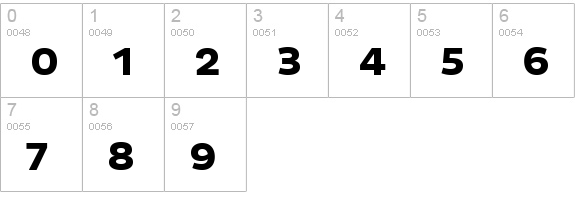
Pluto Bold is a strong, high-contrast variant in the Pluto typeface family \xE2\x80\x94 well suited to headlines, attention-grabbing titles, and strong calls-to-action.
Pluto Bold font is a stunning display typeface that exudes elegance and sophistication. With its bold and eye-catching design, Pluto Bold is perfect for making a statement in your designs. The strong, thick lines of this font make it ideal for headlines, logos, branding, and more. Its modern and sleek aesthetic will add a touch of elegance to any project. The best part? Pluto Bold font is available for free download at FontsMarket.com. Now you can easily access this beautiful typeface and use it in your designs without any cost. Don't miss out on the opportunity to enhance your projects with the striking presence of Pluto Bold font. Download it today and elevate your designs to the next level.